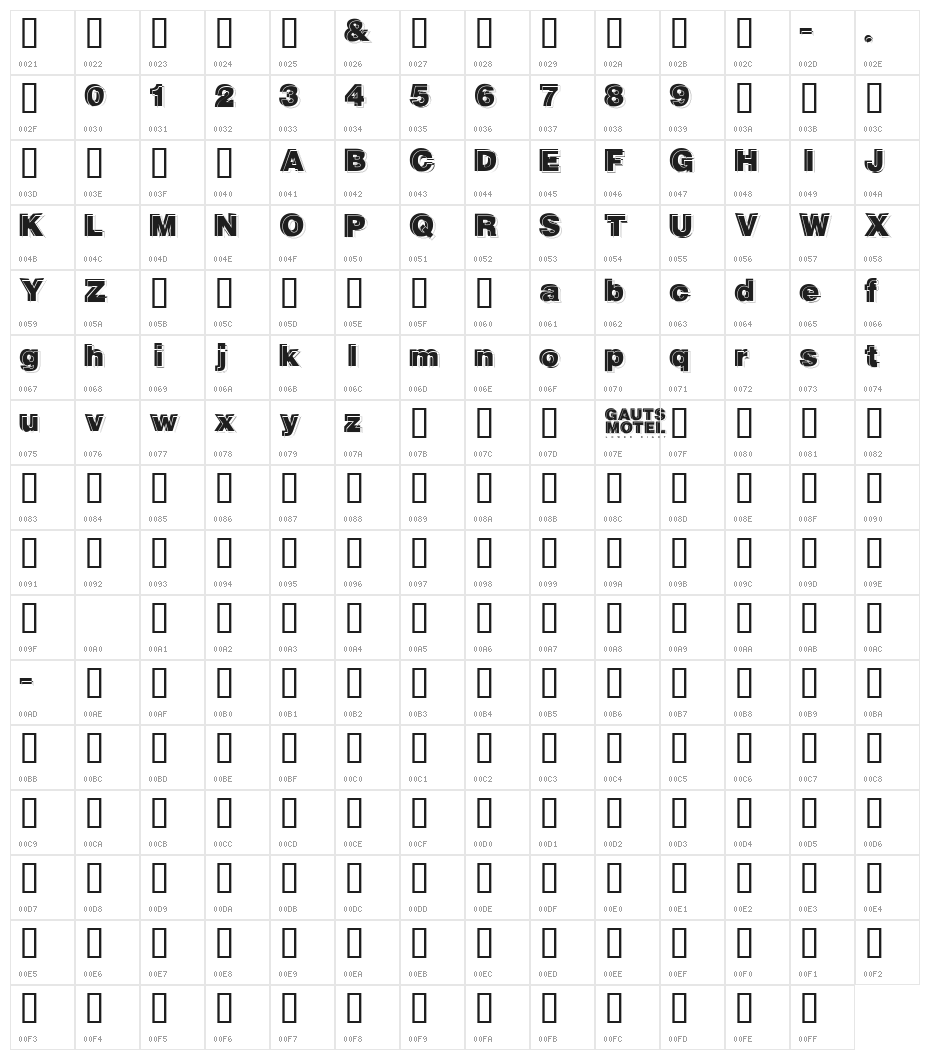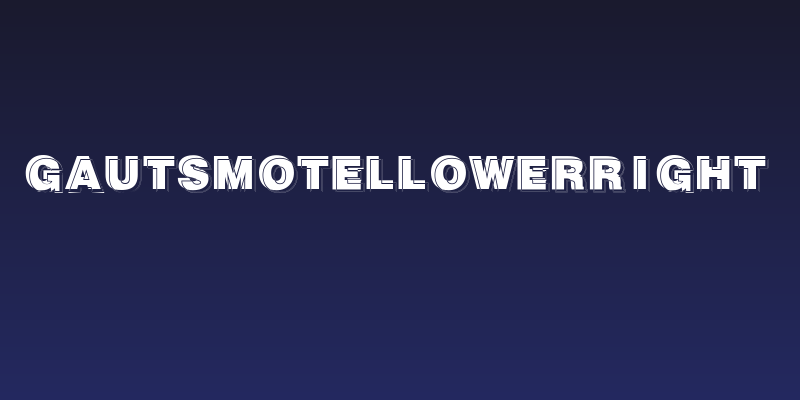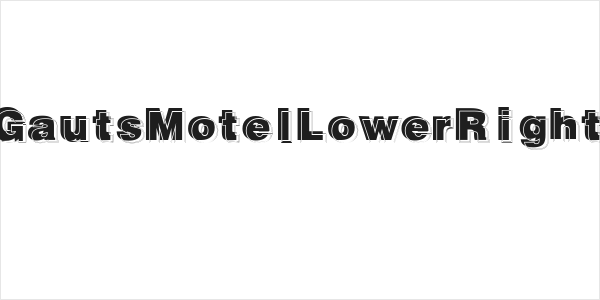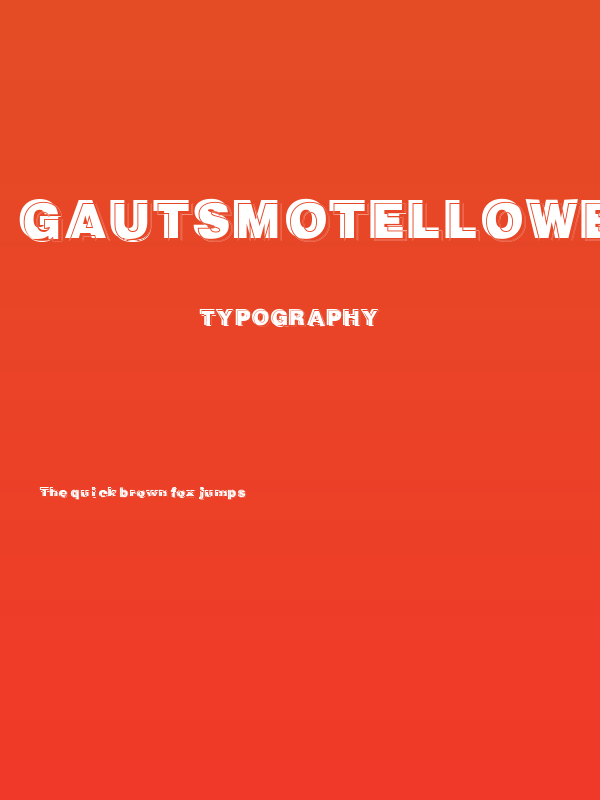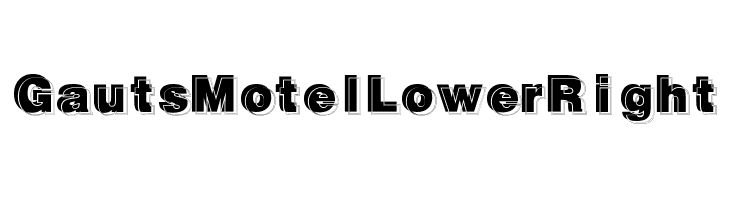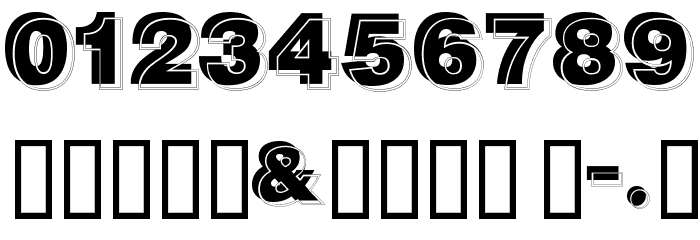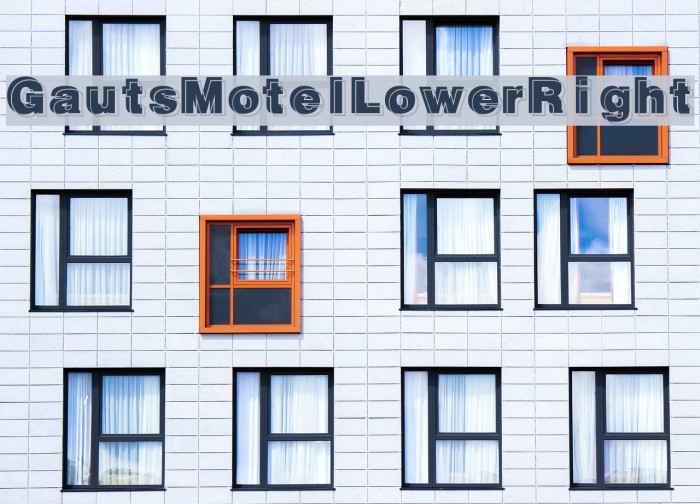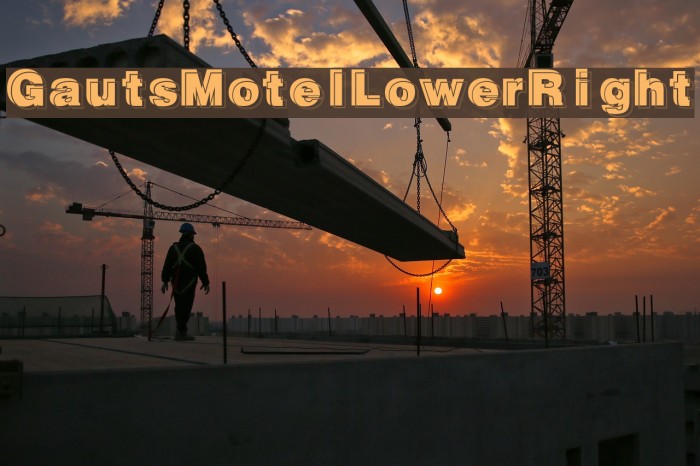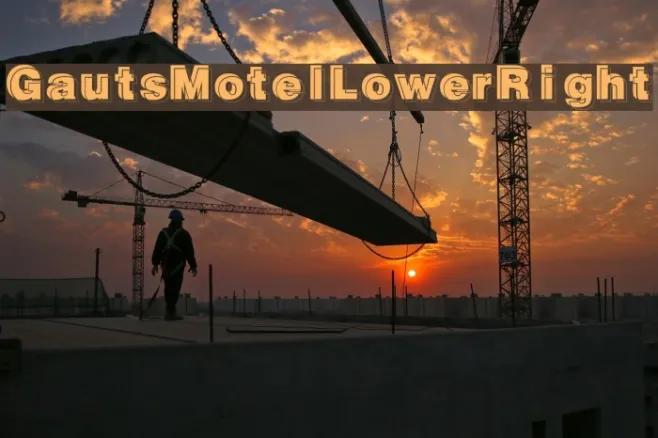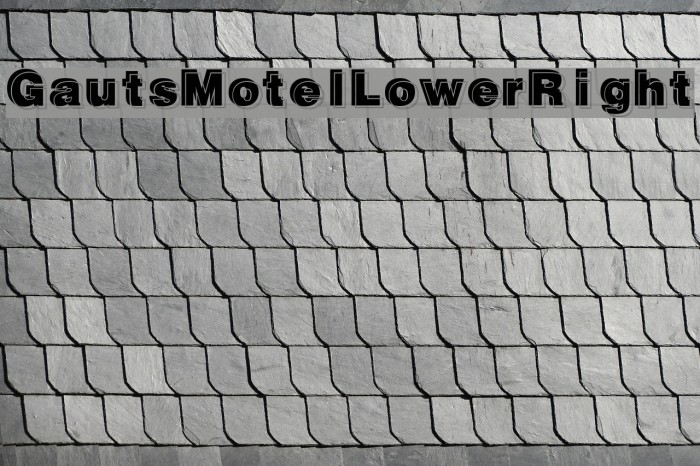
GautsMotelLowerRight Font
GautsMotelLowerRight Description
This font features a bold, three-dimensional style with a strong shadow effect, giving it a striking and impactful appearance. The characters are uppercase and lowercase, with numerals and a selection of special characters. The design is characterized by thick, solid strokes and a distinct outline that enhances its visual depth. The font's geometric structure and clean lines make it suitable for attention-grabbing headlines and display purposes. Its boldness and shadowing create a sense of movement and energy, making it ideal for modern and dynamic design projects.